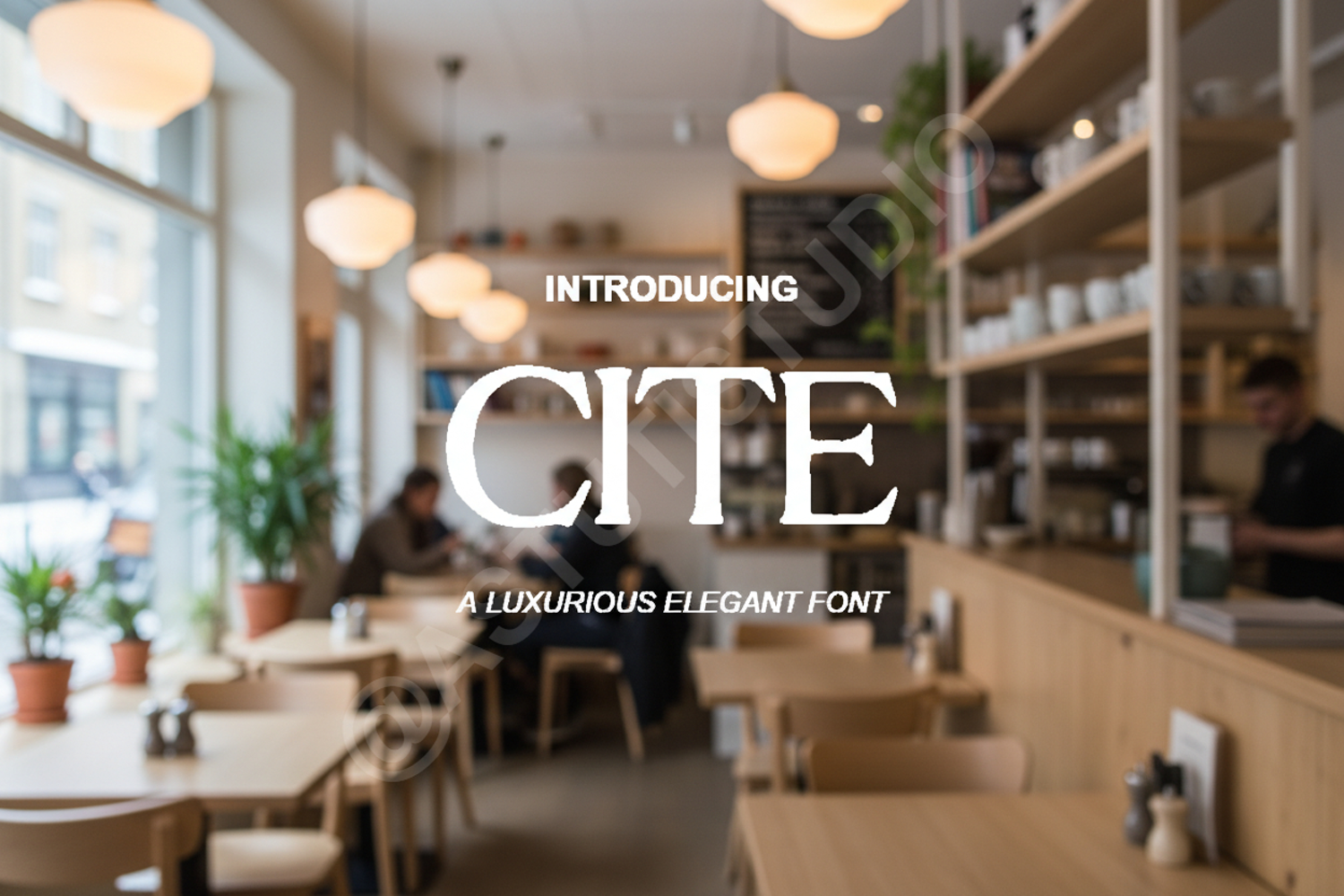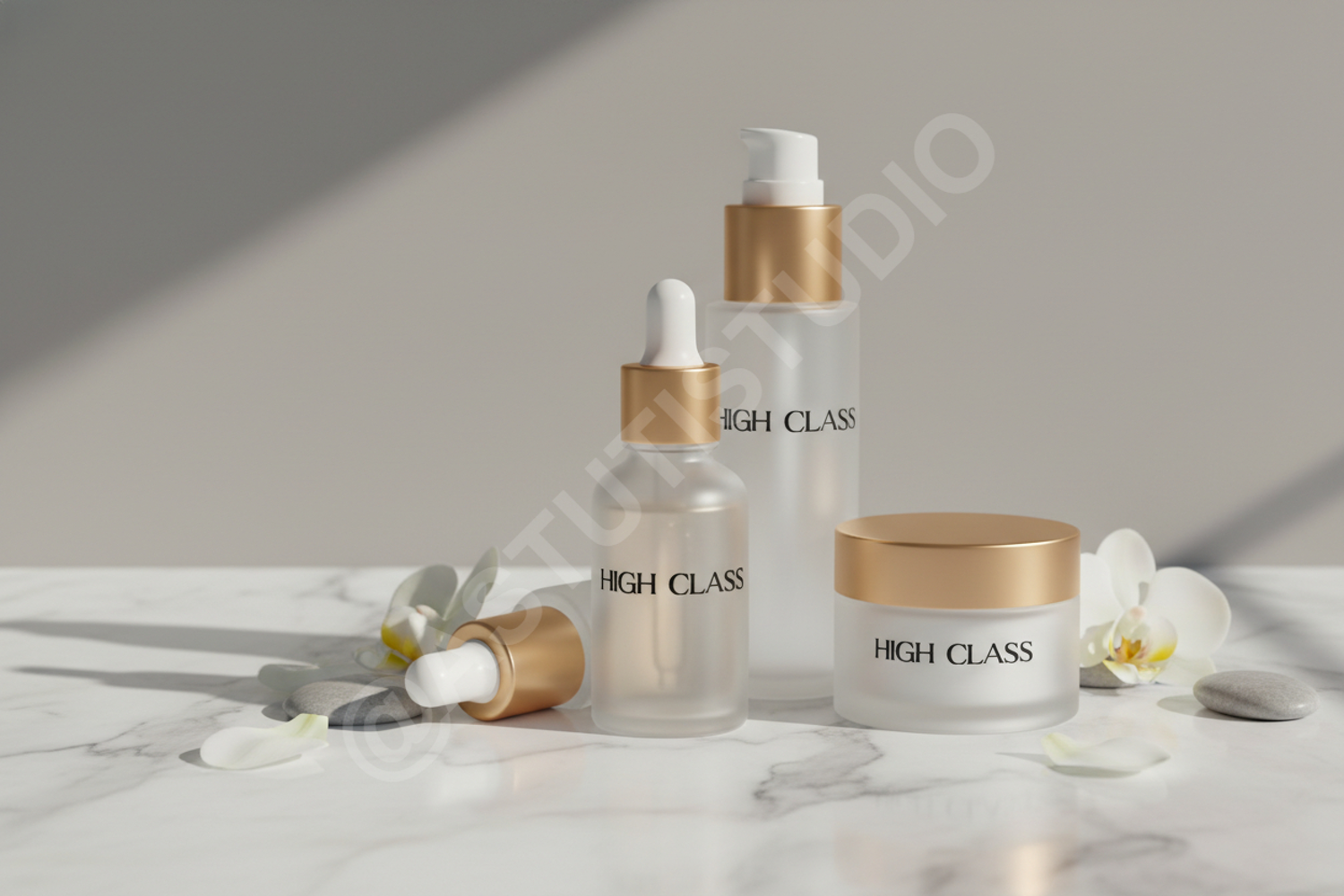
Cite - Modern Minimalist Sans Serif
Cite
Cite is a premium sans serif typeface designed for clarity and modern elegance. Its balanced proportions and clean lines make it a versatile choice for designers seeking a sophisticated aesthetic. Whether you are working on a high-end brand identity or a sleek digital interface, Cite provides the professional edge your project deserves.
- Full Uppercase and Lowercase Character Sets
- Numbers, Punctuation, and Symbols
- Extensive Multilingual Support
- Luxury Branding and Identity
- Minimalist Logo Design
- Editorial and Magazine Layouts
- Website Headers and Navigation
- Social Media Content
- High-End Packaging